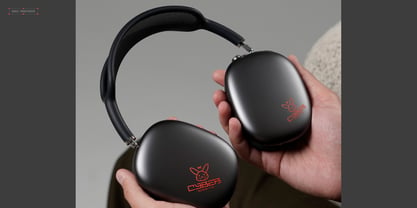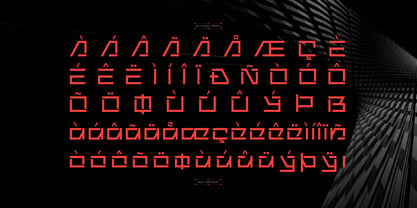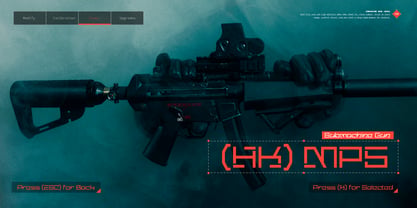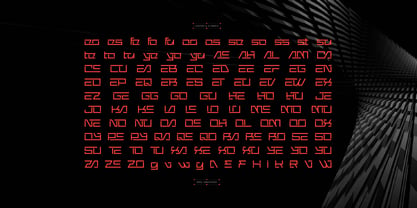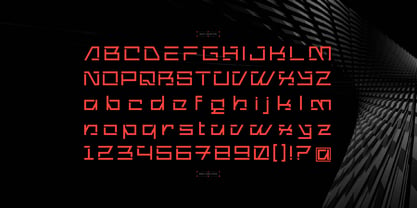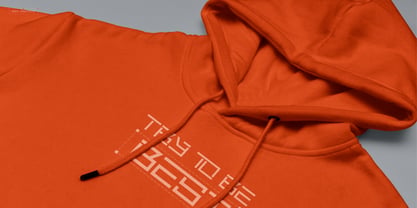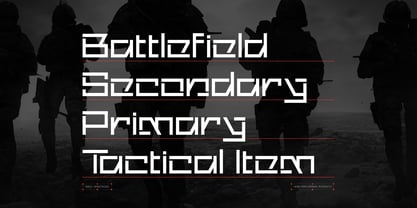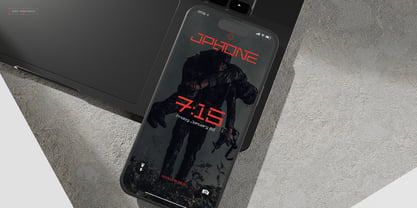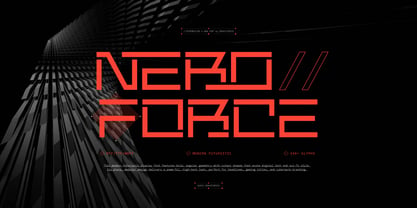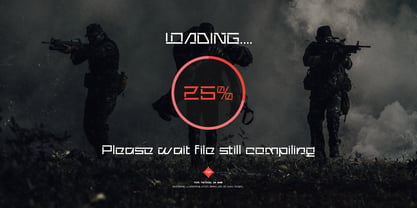
Nero Force
The Nero Force Font Family was designed by Dede Nugraha and published by Denustudio. Nero Force contains 1 styles. More about this family
Nero Force | Modern Futuristic, from Denustudios, suitable for any projects such as: logos, branding projects, homeware designs, product packaging, mugs, quotes, posters, shopping bags, t-shirts, book covers, name card, invitation cards, greeting cards, label, photography, watermark, special events, and all your other lovely projects that need Modern Futuristic a taste.